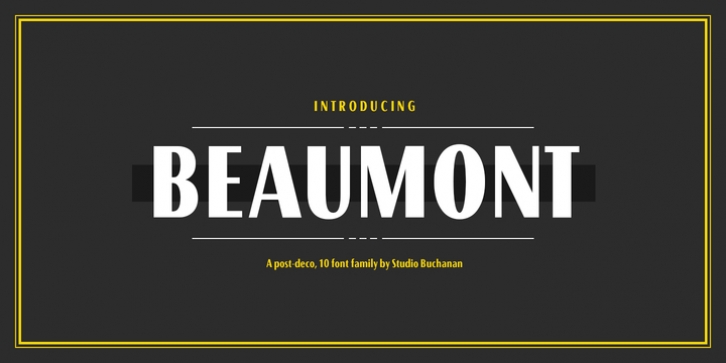
Beaumont downloadDesigner: Jonathan Gibson
Publisher: Studio Buchanan
Beaumont is a modern take on classic 1920’s type, playing with stroke contrast and art deco forms. The result is a 10 font family, providing options for setting readable body copy or high impact display headings. With full multilingual character support, stylistic alternates and a range of open type features, Beaumont is perfect for a variety of situations.